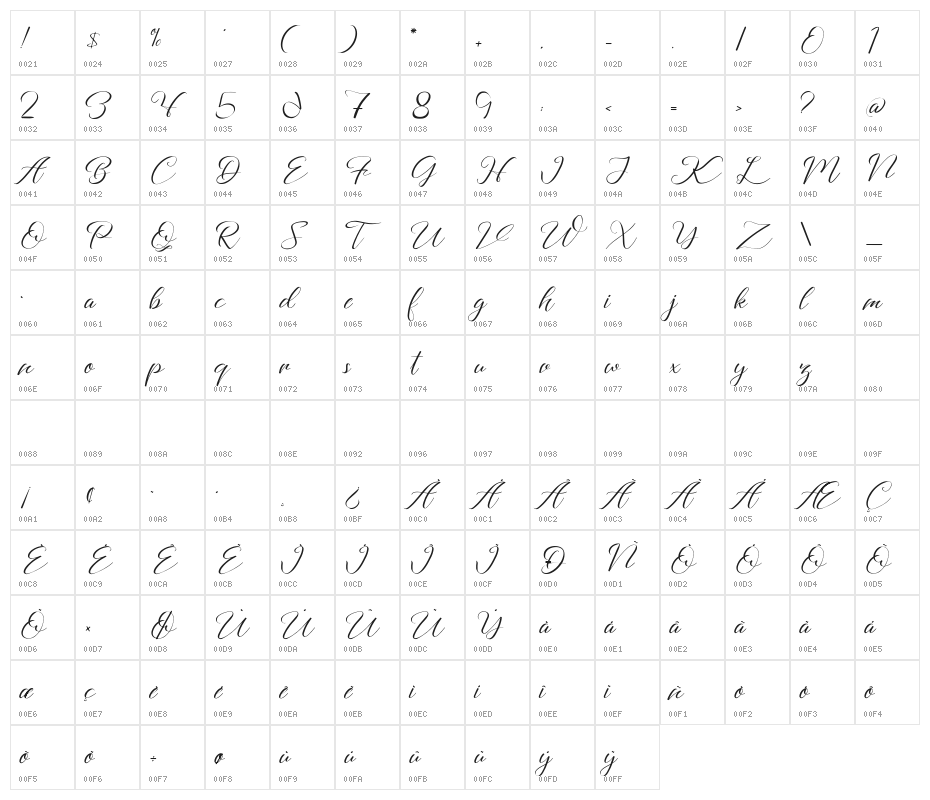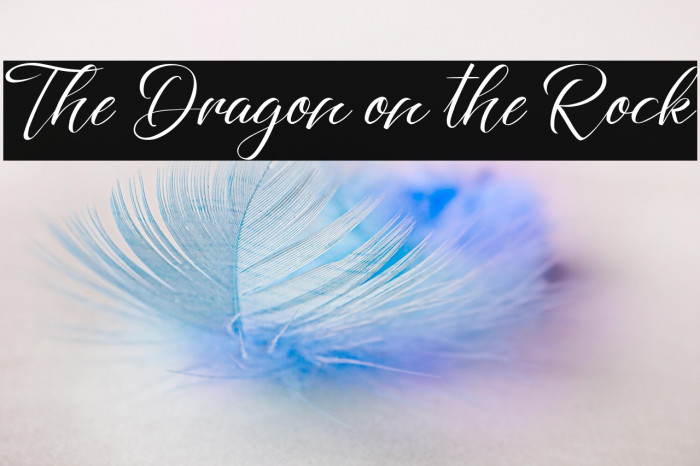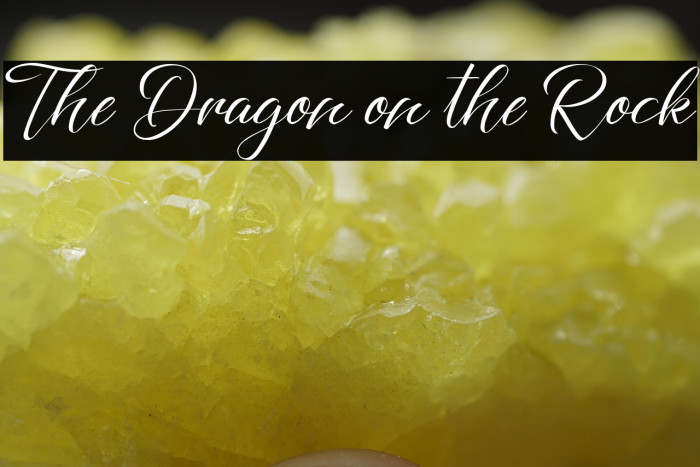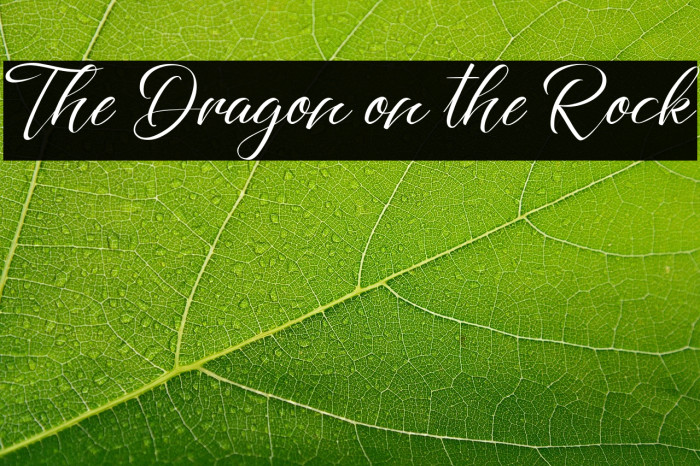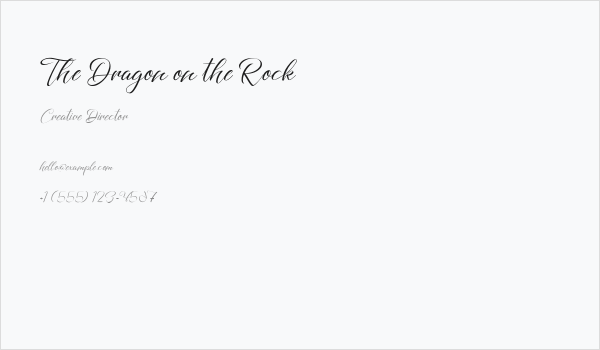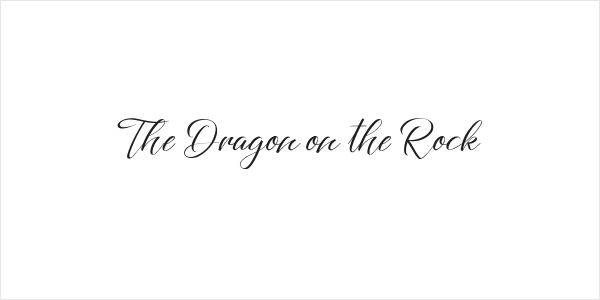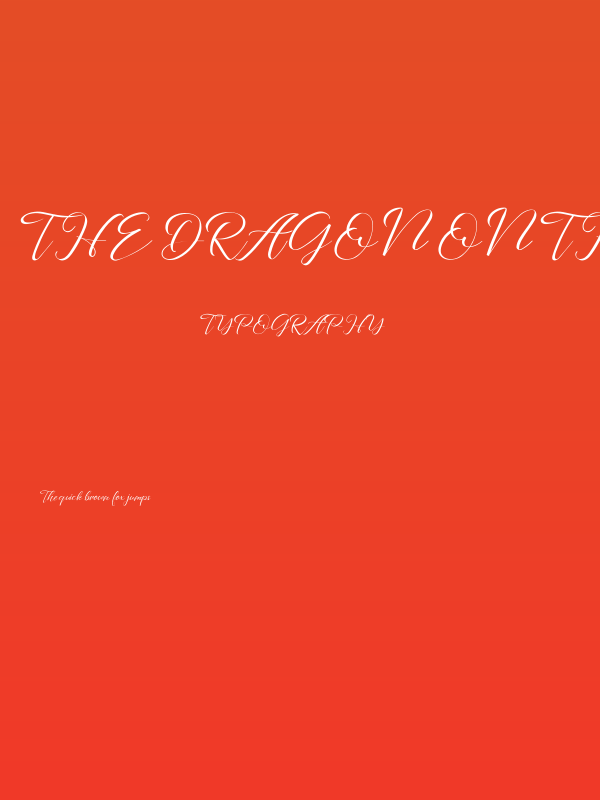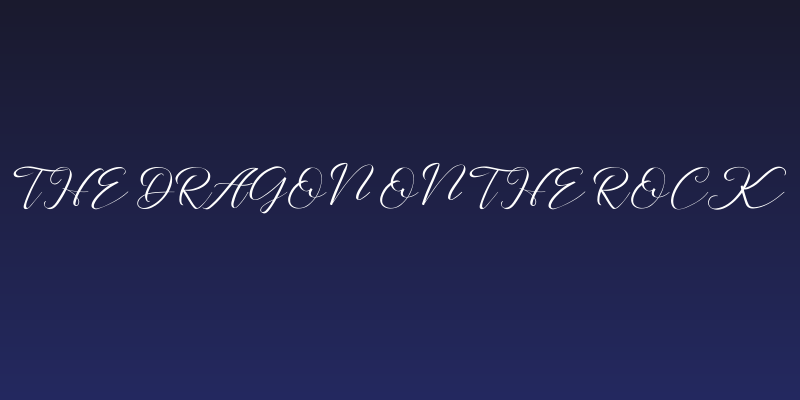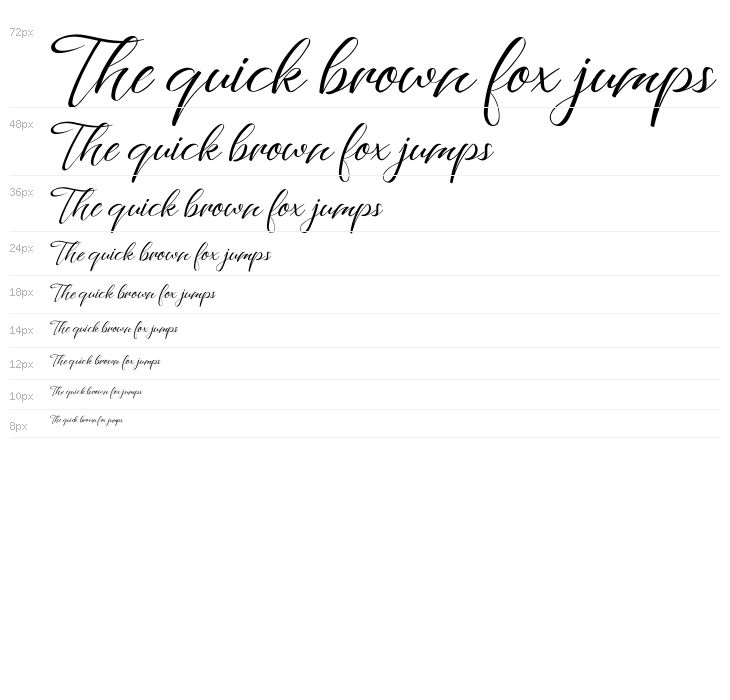
The Dragon on the Rock Font
The Dragon on the Rock Description
This elegant script font features a flowing, cursive style with intricate loops and swashes, giving it a sophisticated and artistic appearance. The uppercase letters are particularly ornate, with extended flourishes that add a touch of drama and flair. The lowercase letters maintain a consistent slant and are connected, enhancing the fluidity and grace of the text. The numerals are designed with a similar elegance, featuring subtle curves and a harmonious balance. Special characters are thoughtfully integrated, maintaining the overall aesthetic. This font is perfect for projects that require a touch of elegance and refinement.